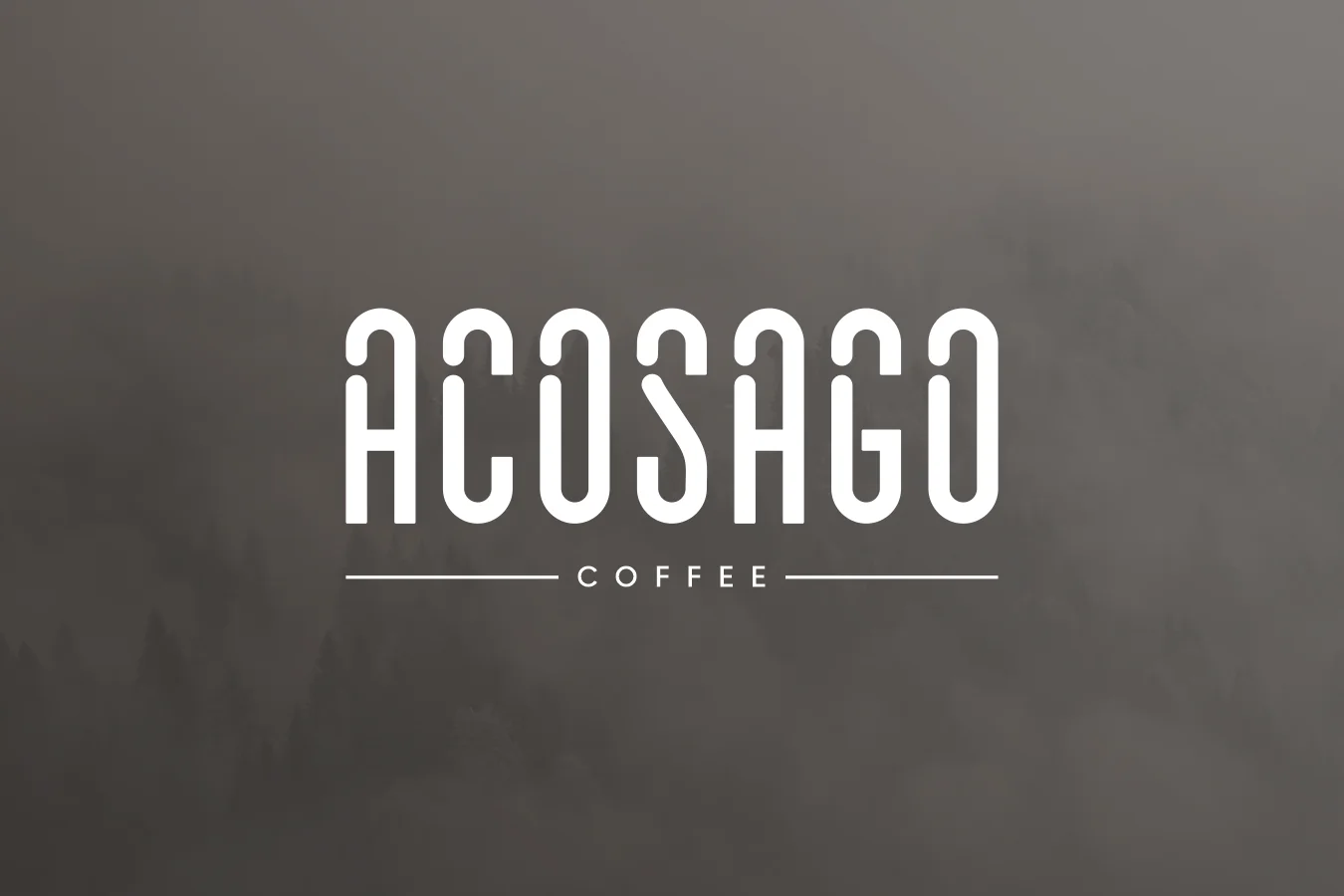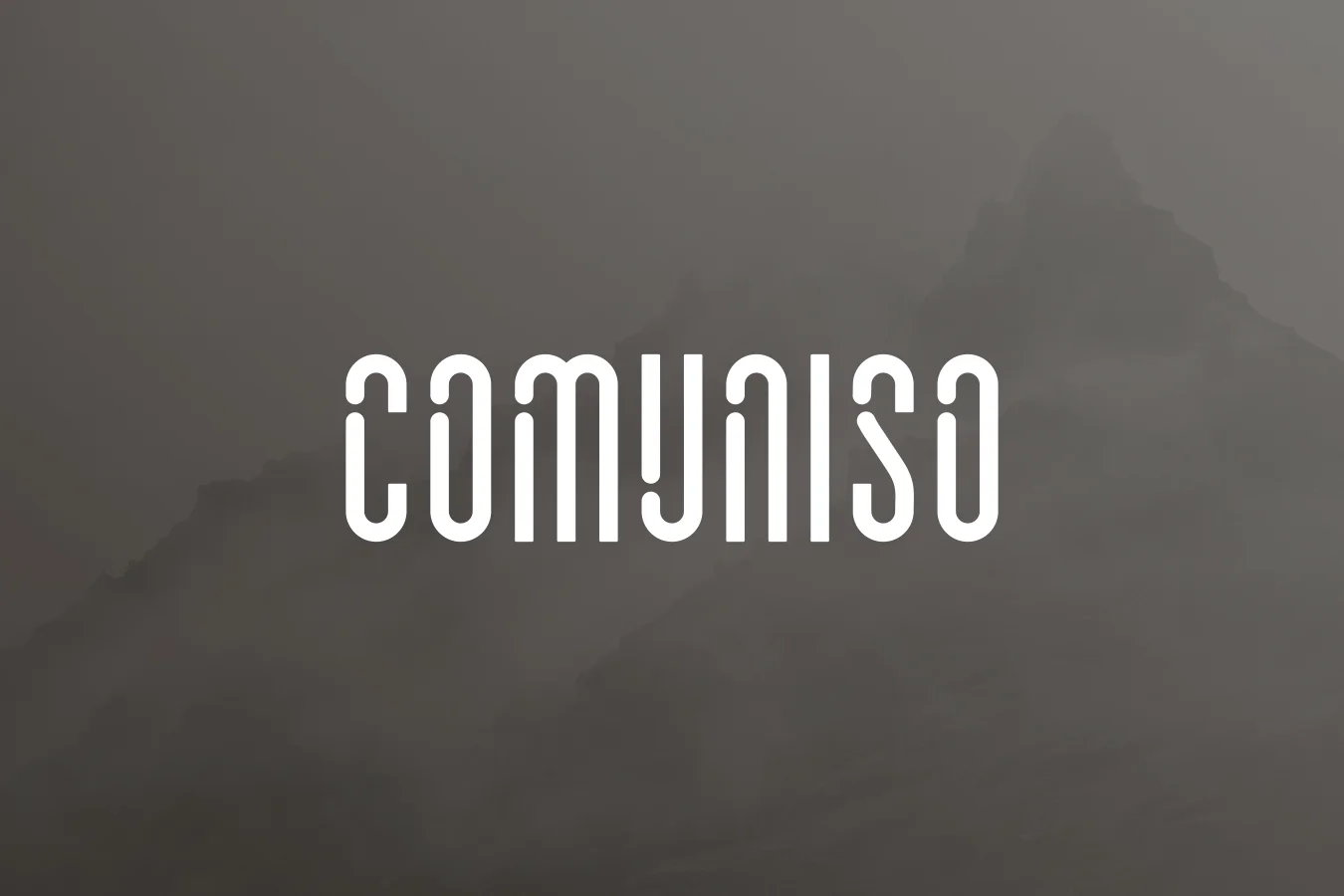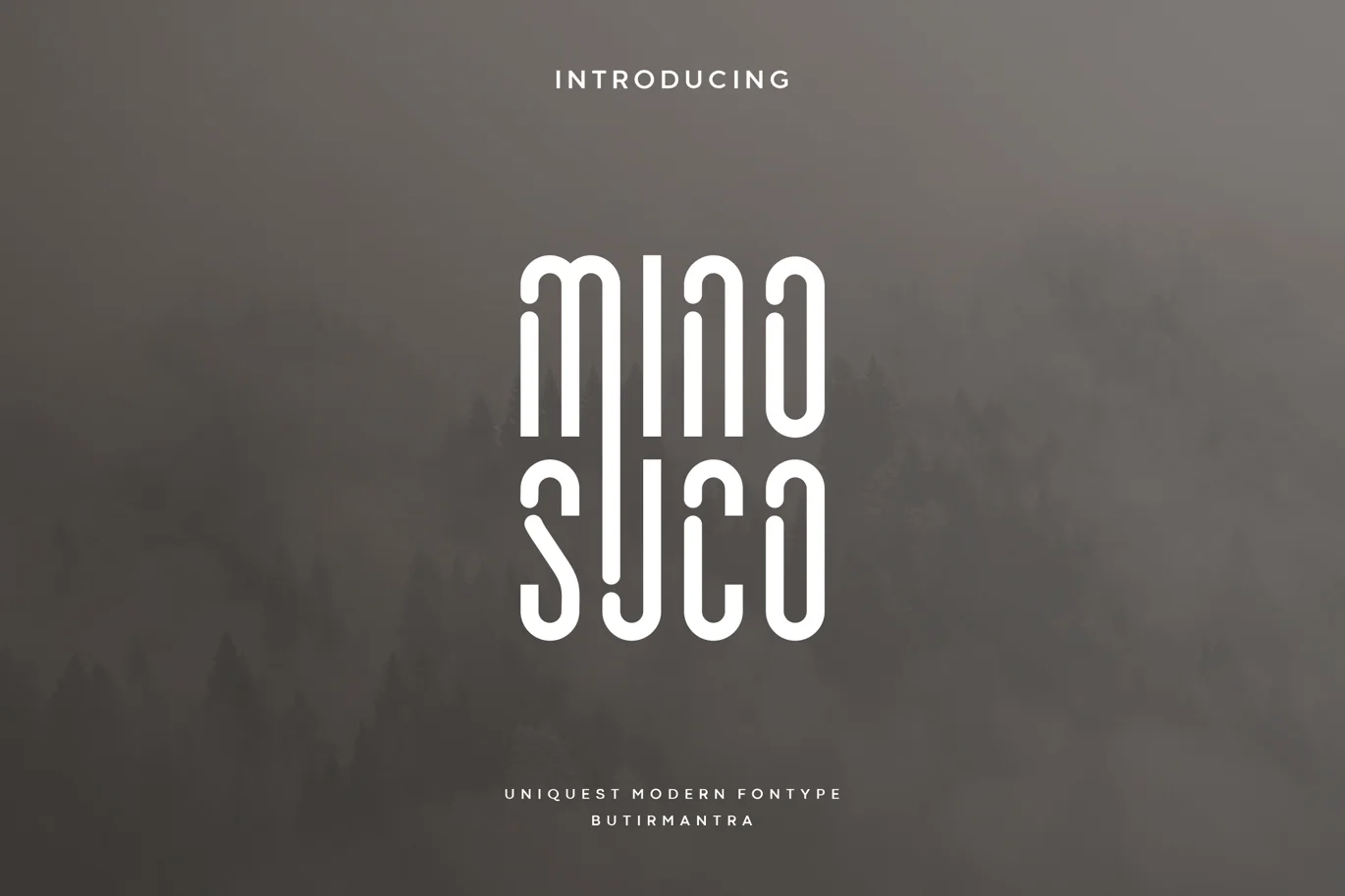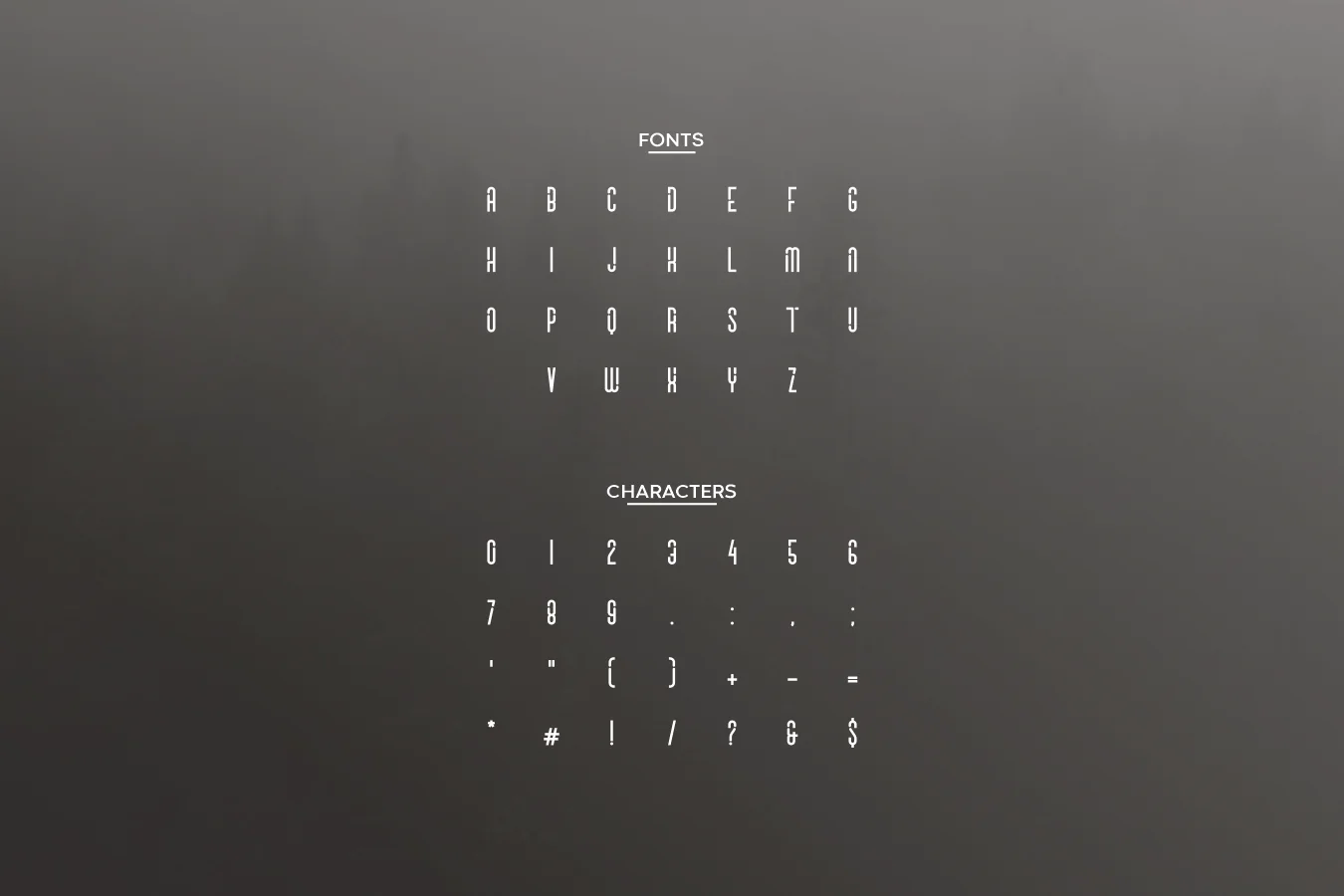
Minosuco – Artdeco Font
Minosuco is a display font with a unique style that has improvised an all-caps mode, even though it is an all-caps font that pairs well with other font styles. This font is perfect for anything related to logos and branding, food, illustrations, book titles, website titles, video writing, or anything you can try to gain experience in your graphic design needs. Bringing back a vintage style that is simple but looks modern, of course it will give a timeless effect.